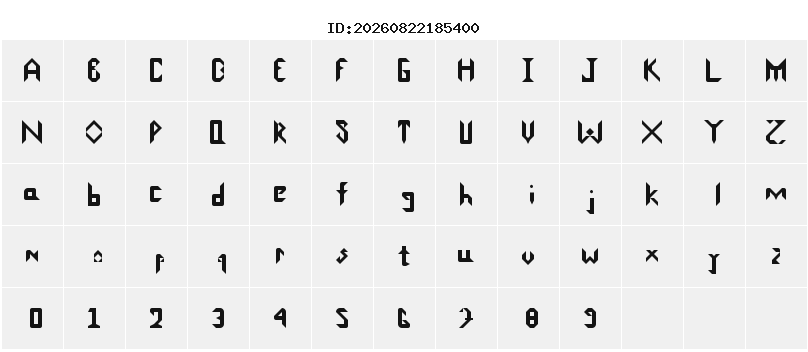
• Font Name: Scarlet_River_Font
• Font ID: FontStruct Scarlet_River_Font
• Full Font Name: Scarlet_River_Font Regular
• PostScript Name: Scarlet_River_Font
• Character Count: 95
• Designer: JVen
About Scarlet_River_Font.ttf
Scarlet_River_Font.ttf is a modern, elegant sans-serif font designed for ultimate readability and visual harmony. Perfect for branding, headlines, web design, and print materials.